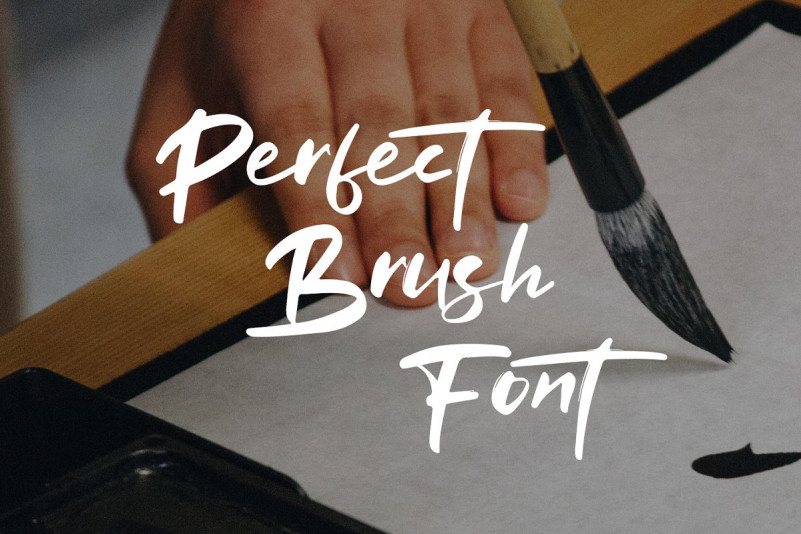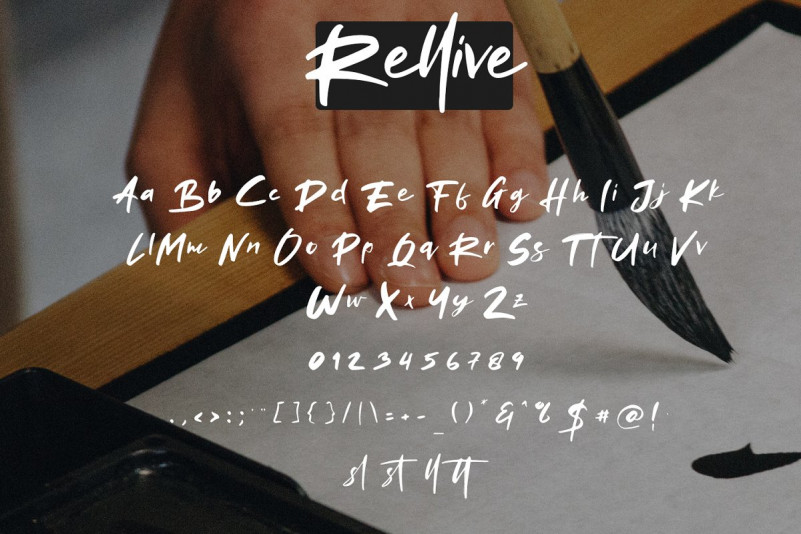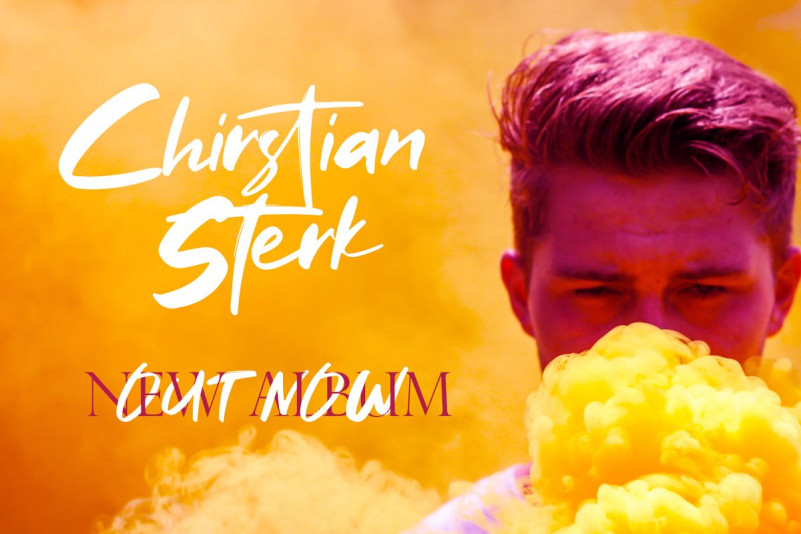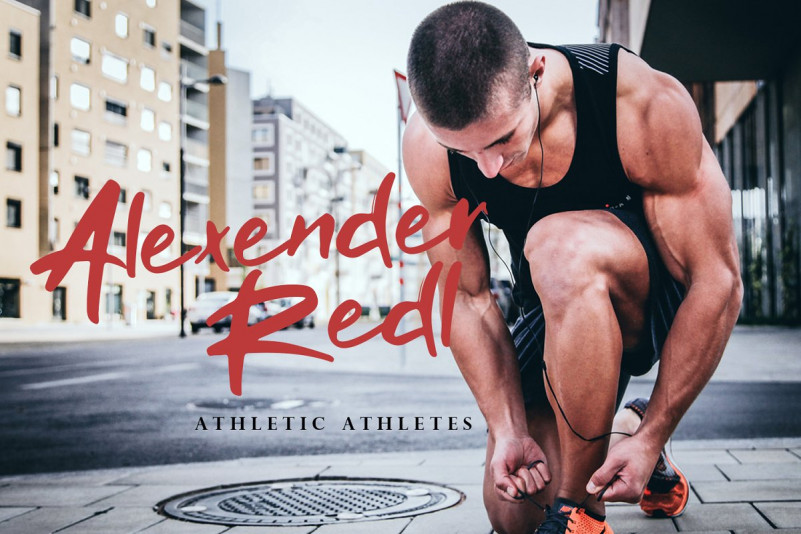
I’m happy to present Rellive Brush Font. It has been drawn with a marker pen and a swift hand. It’s great for an aggressive/rebel design style for teenagers. Rellive Font is a font with distinctive handwritten characters perfect for branding projects, logos, wedding designs, media posts, advertisements, product packaging, product designs, labels, photography, watermarks, invitations, stationery, and any project who need handwritten dishes.